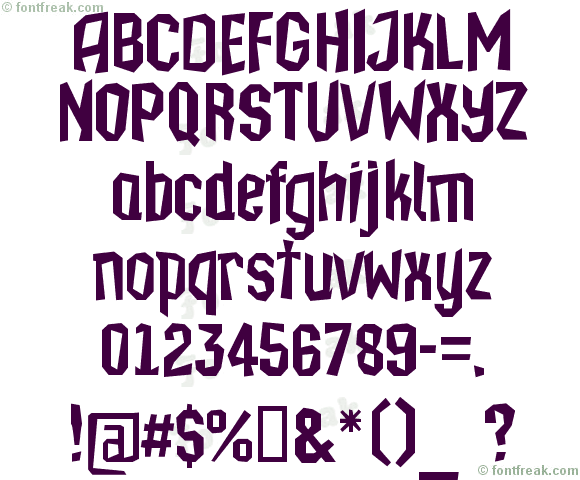
IsleOfTheDead
About Isle Of The Dead
The Isle Of The Dead font by Cybapee Creations is a striking display typeface that captures attention with its unique character and artistic flair. Released in 1999 as freeware, this font embodies a decorative style that blends elements of gothic and fantasy, making it ideal for projects that require a touch of drama and intrigue. The visual characteristics of Isle Of The Dead include bold, expressive letterforms with a varied stroke weight that creates an engaging contrast. Each character is well-spaced, allowing for legibility while still maintaining an eye-catching presence. The intricate details within the letters add a layer of sophistication, making it a visually compelling choice for various design applications.
This font is particularly well-suited for use in movie posters, where its dramatic flair can evoke a sense of mystery and excitement. Additionally, it works wonderfully for Halloween-themed graphics or events, infusing designs with a playful yet eerie tone. Isle Of The Dead is also an excellent choice for fantasy book covers, giving a whimsical yet serious aesthetic that appeals to readers. Small business owners looking to create a memorable brand identity can use this font for signage or promotional materials that stand out from competitors. Graphic designers and content creators will find it a valuable addition to their toolkit for crafting unique visual narratives.
What sets Isle Of The Dead apart is its ability to convey emotion and story through typography. This font is not just a set of letters; it is a creative expression that invites viewers to explore deeper meanings. With the Isle Of The Dead font free download available, designers have an opportunity to infuse their projects with an element of artistry and depth that is both captivating and memorable.